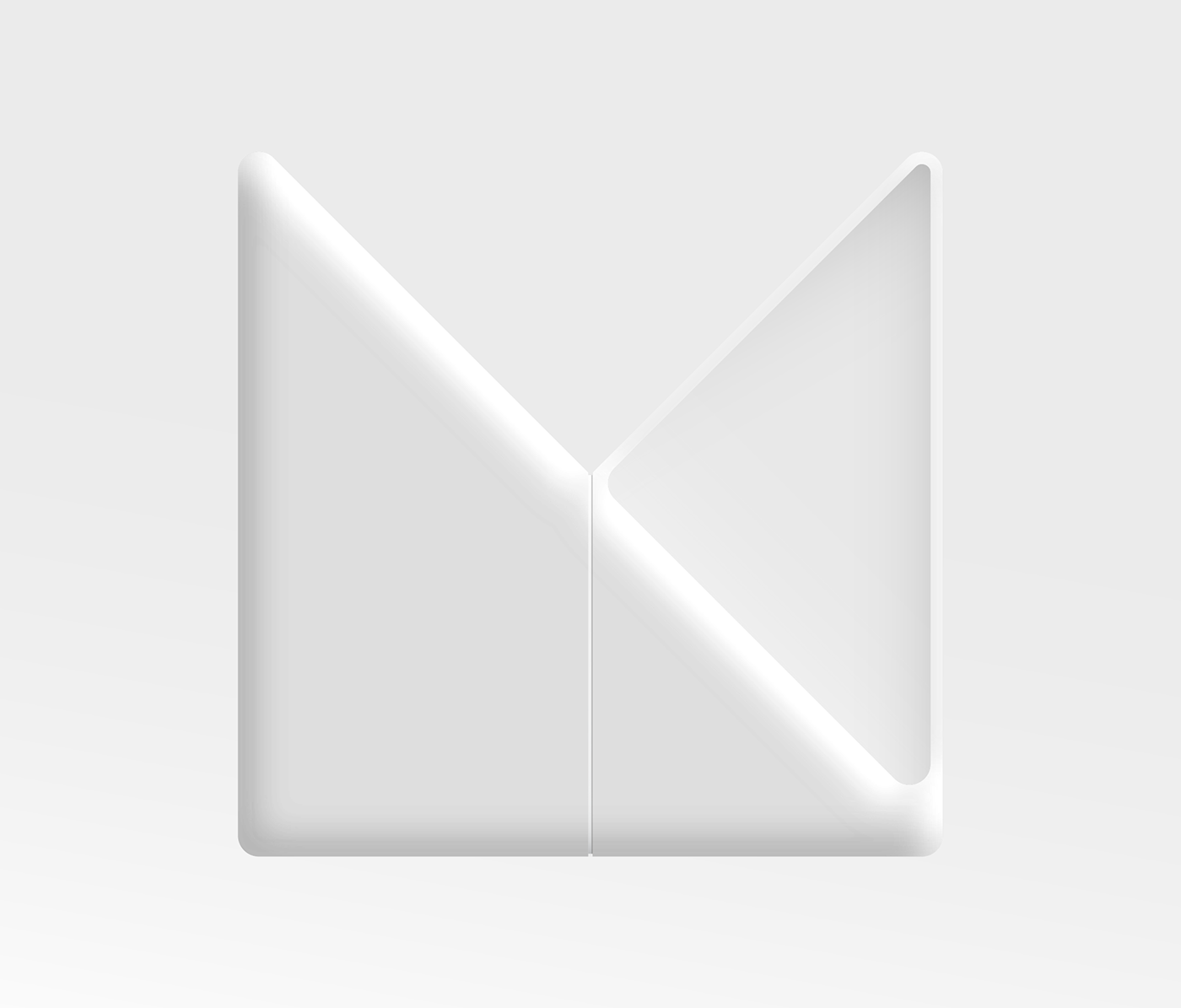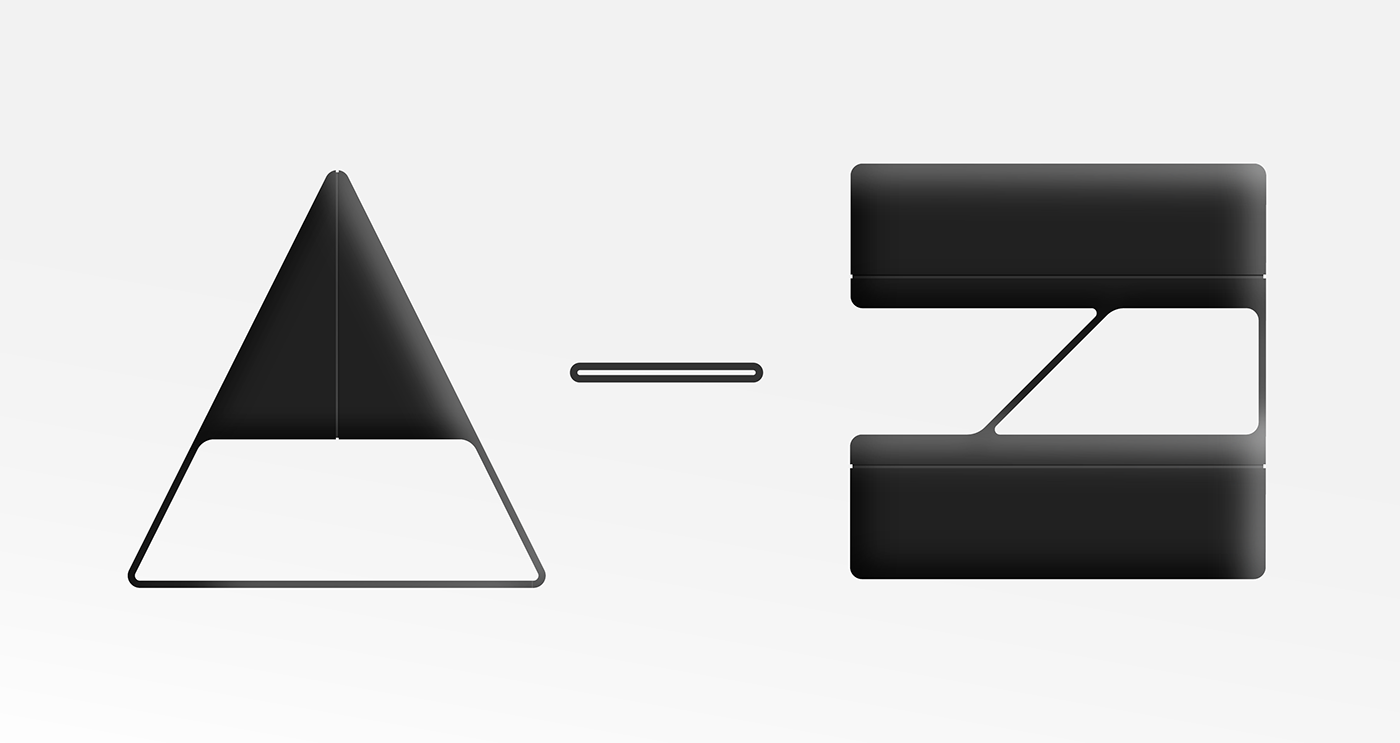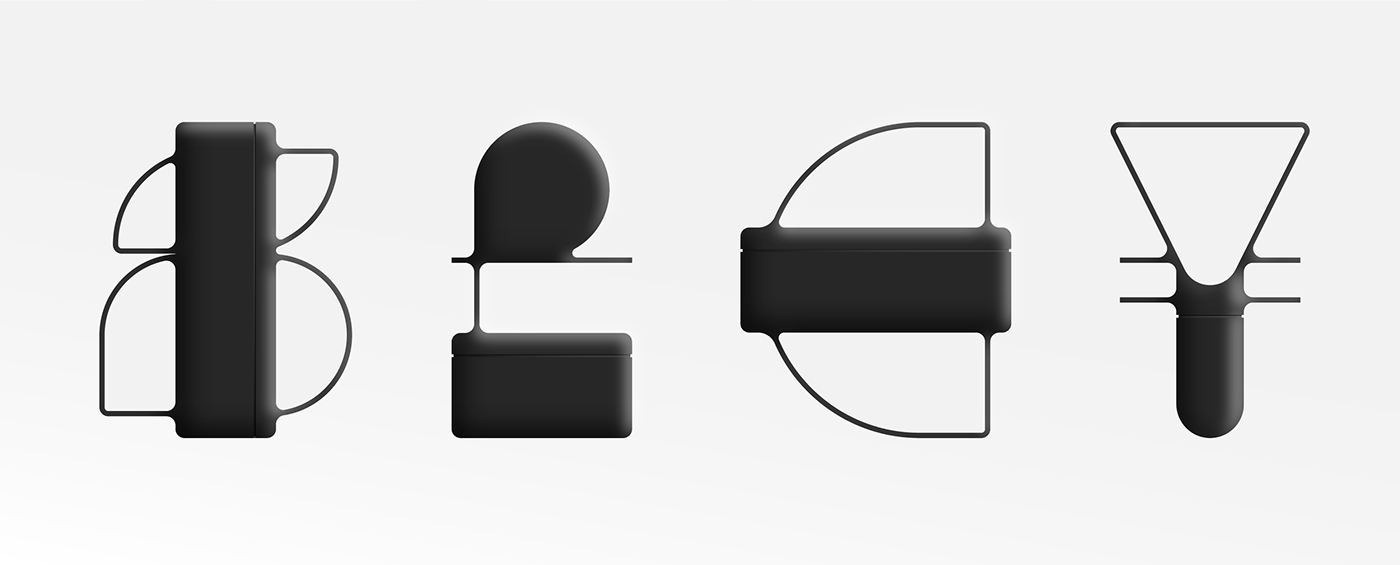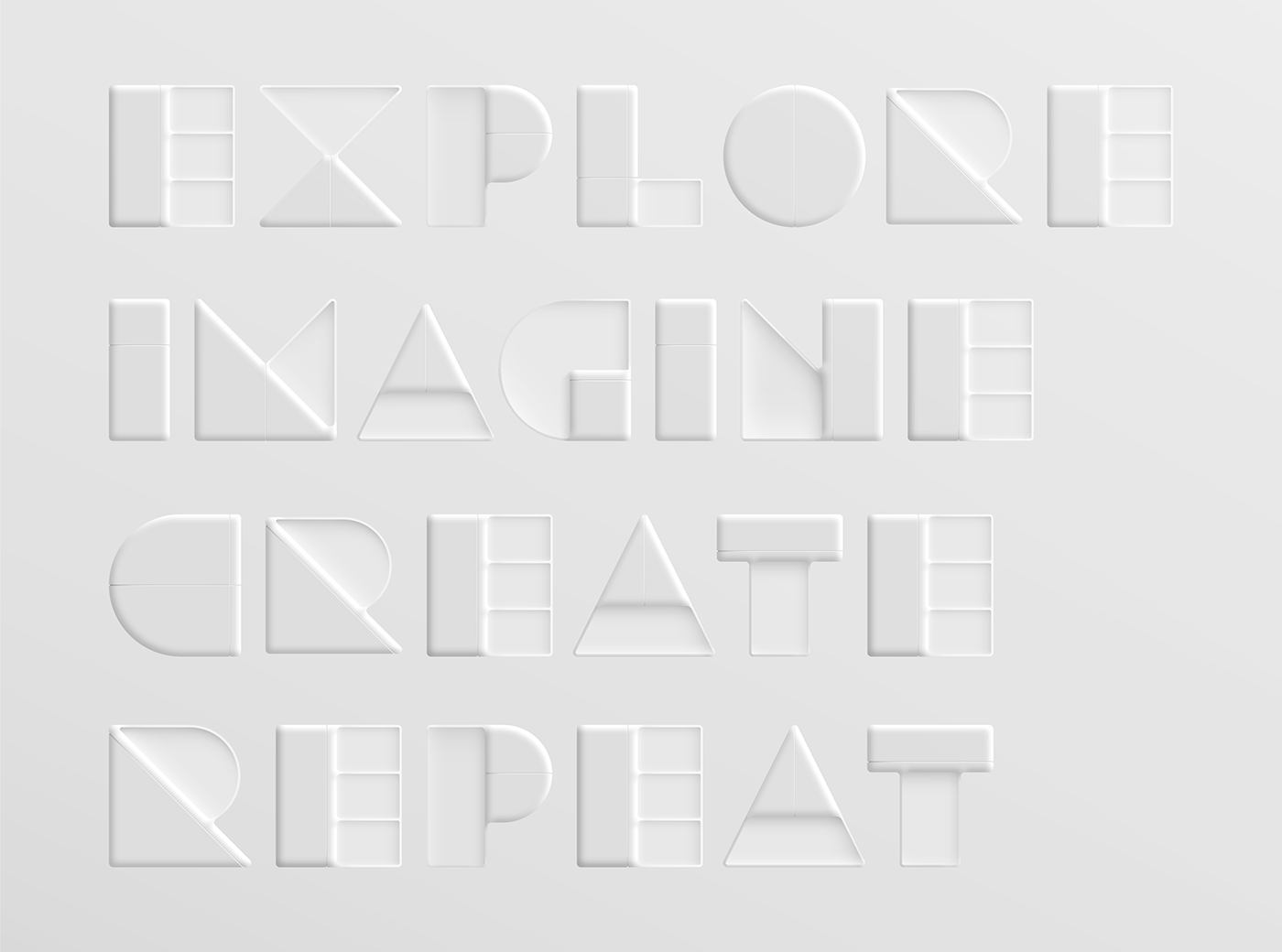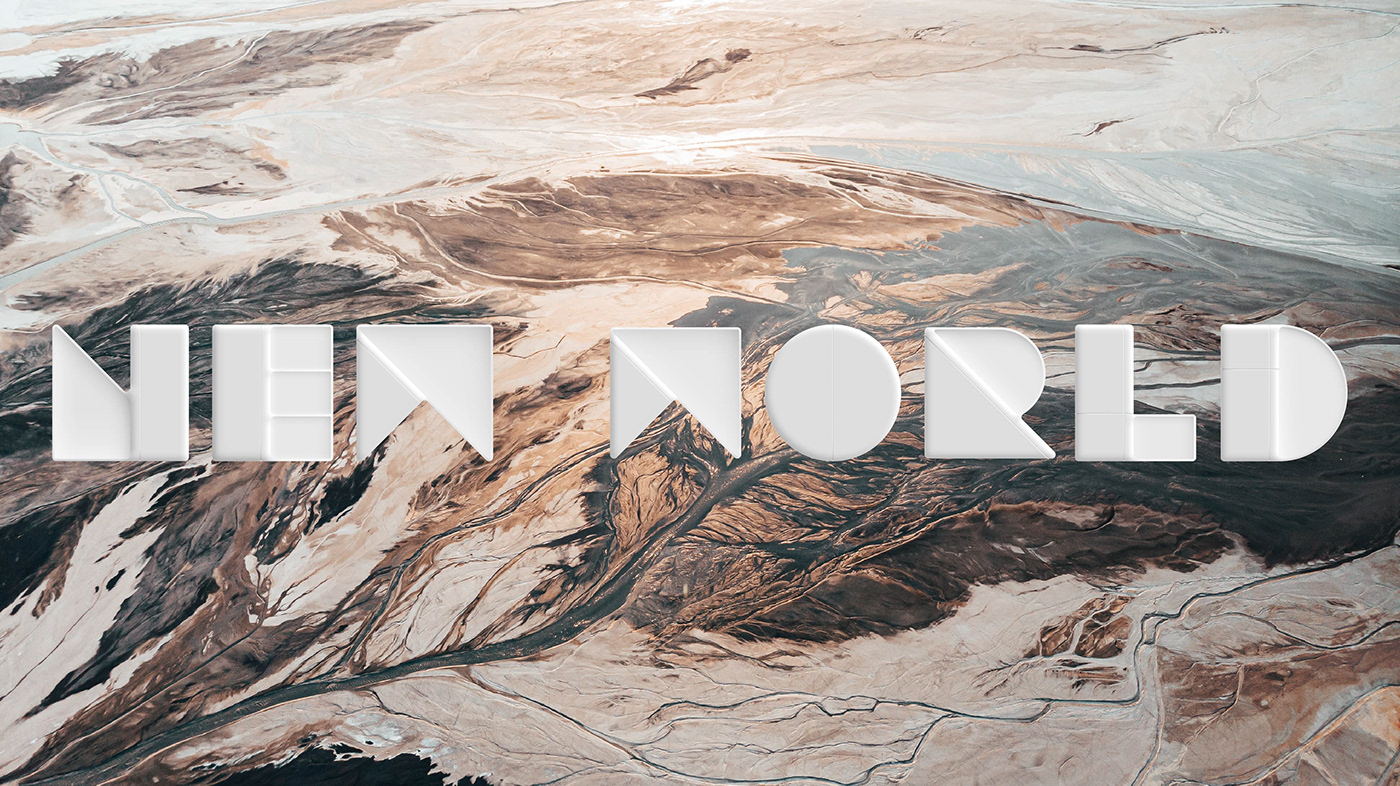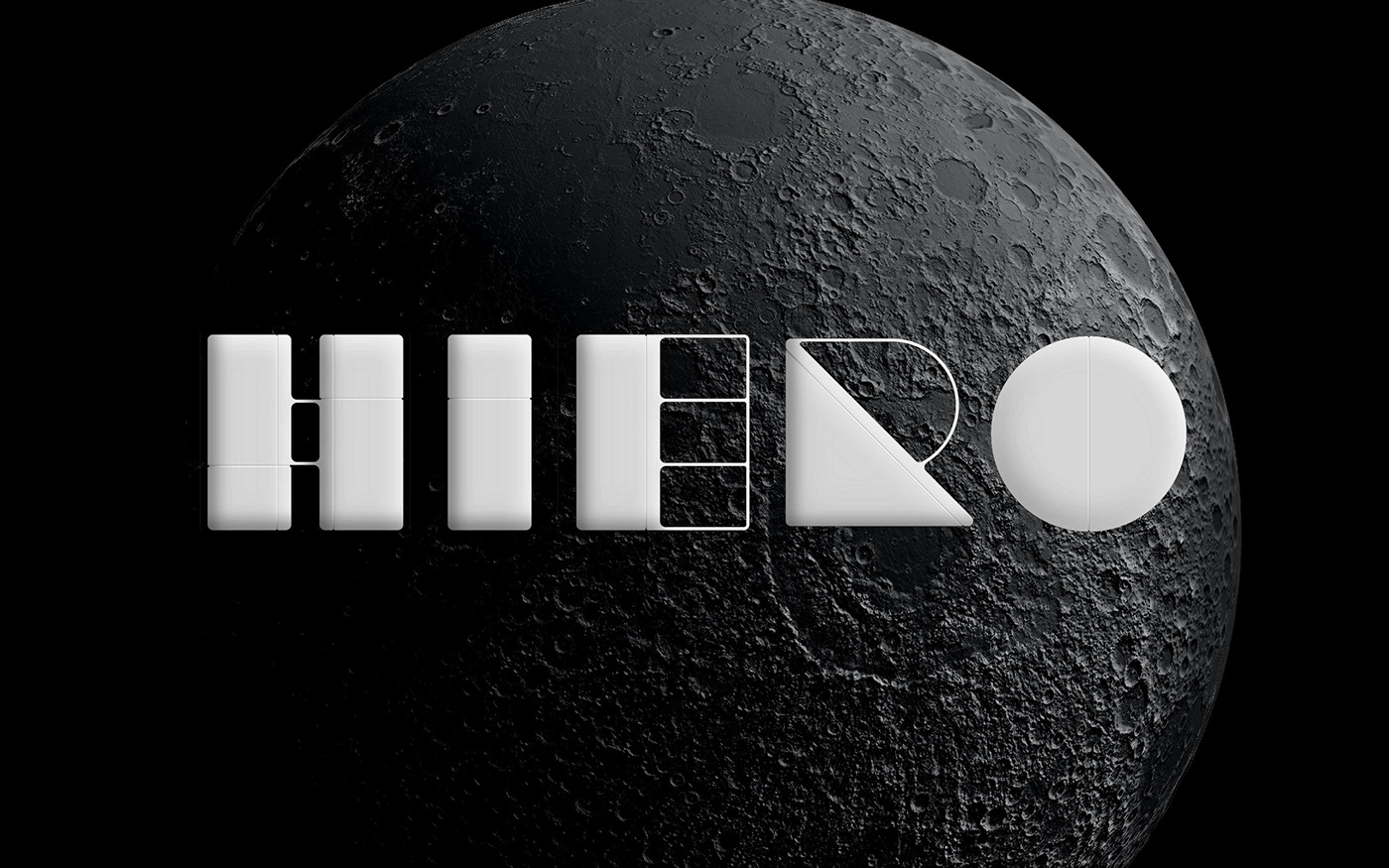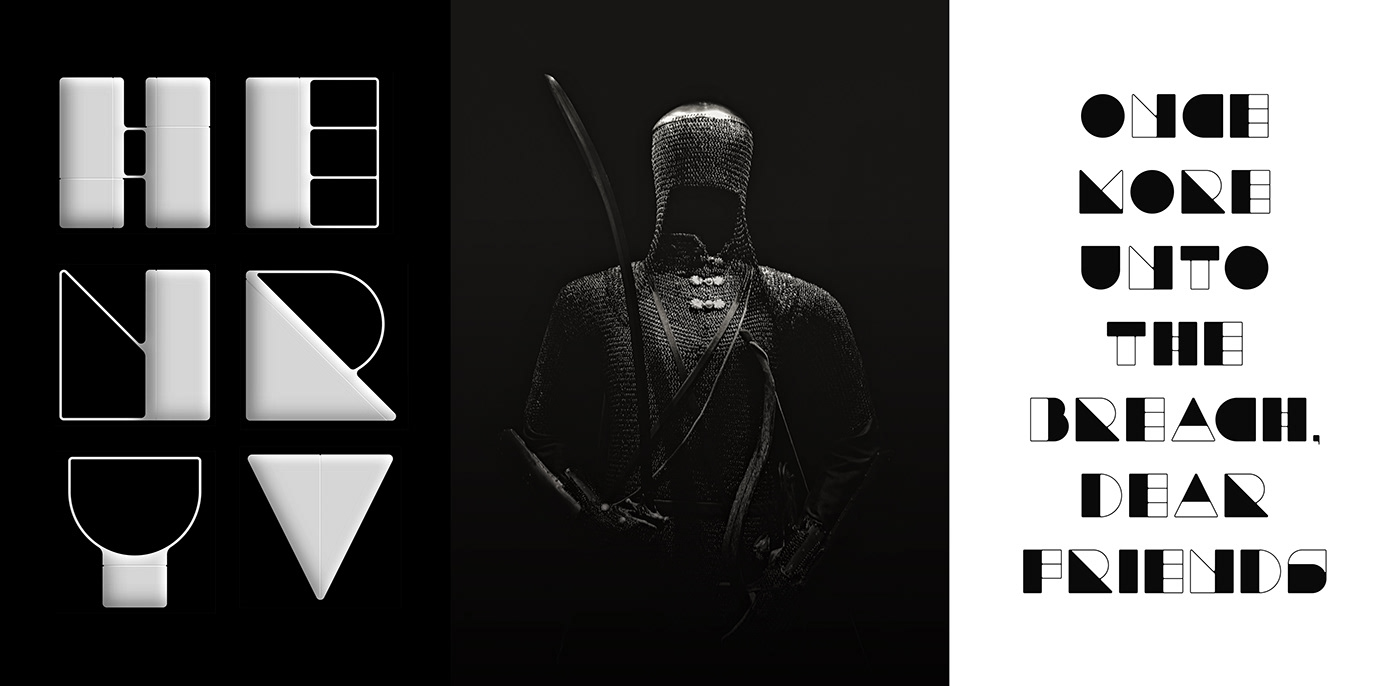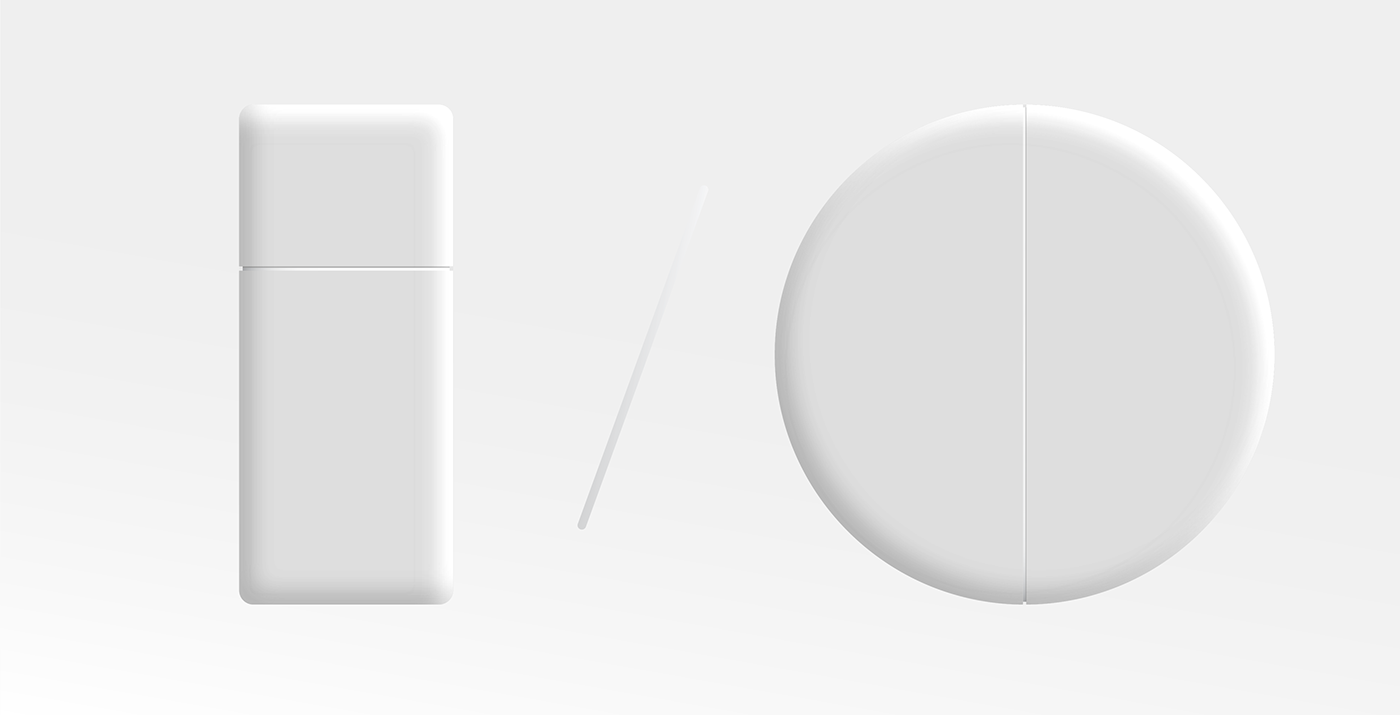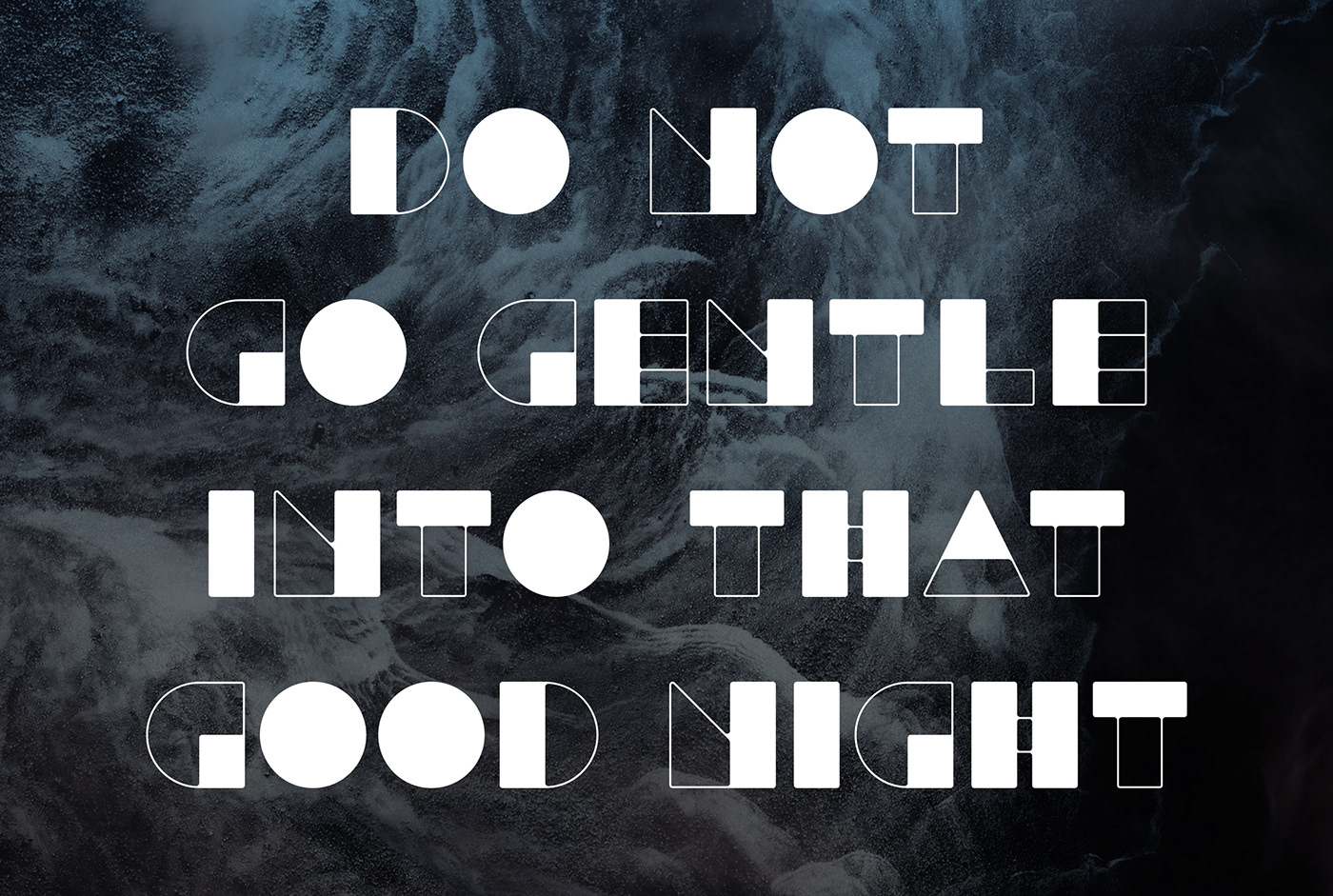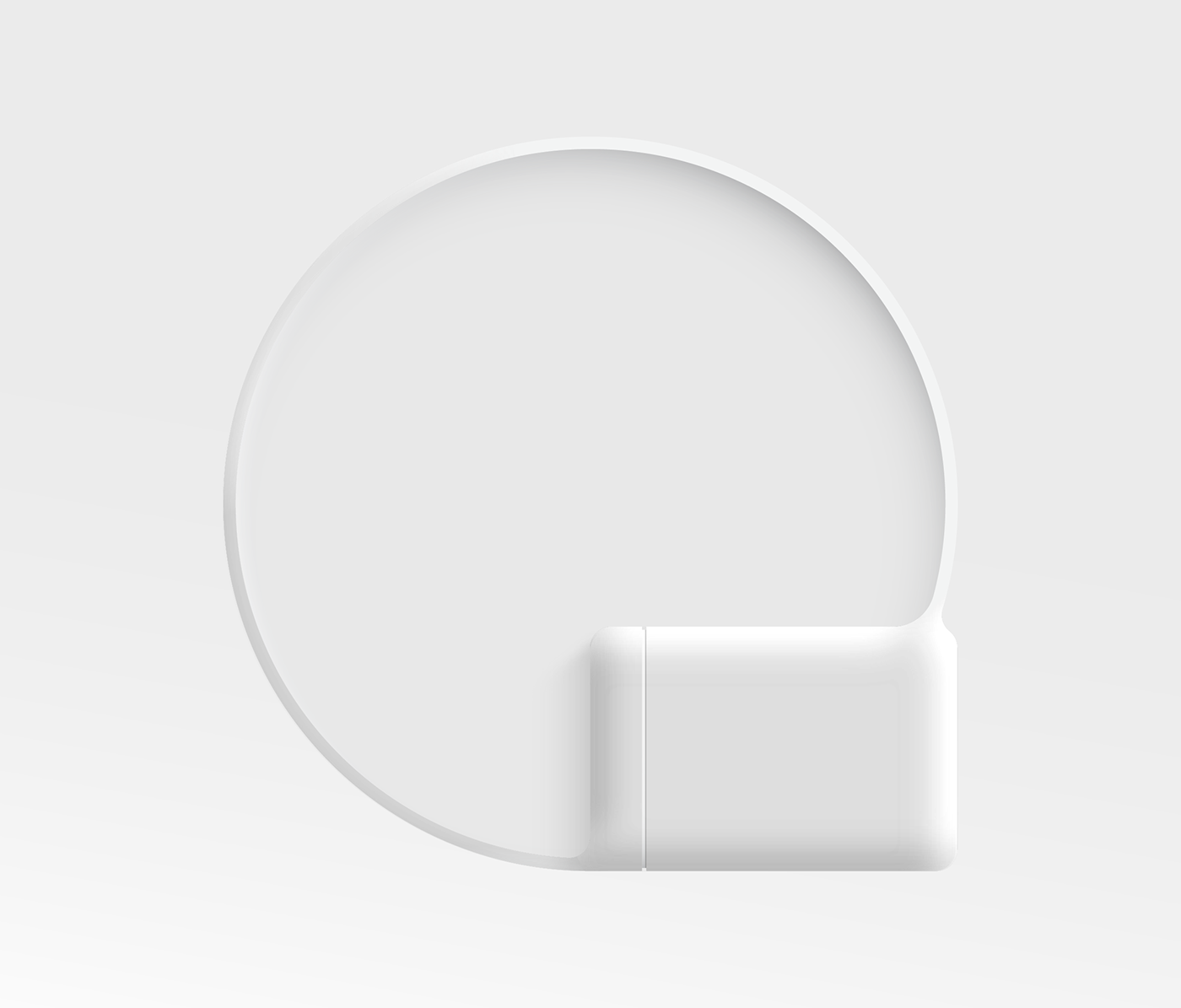
Scott Newland shared a personal typography project titled Hiero. Hiero is a self-initiated experimental display typeface. The project aim was to create a collection of simplistic, block-like characters whose designs are limited to the use of four geometries: a circle, 3x7 rectangle, isosceles-acute and isosceles-right triangle. It comes in two styles, mass (block) and void (line).
After each character took shape, detailing was applied to subtly contrast with their simple forms, giving the appearance of depth, scale and acts of assembly.